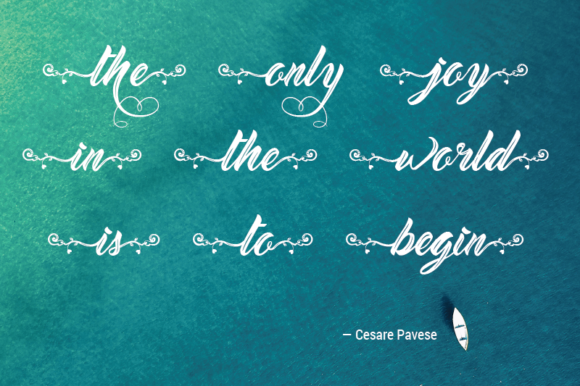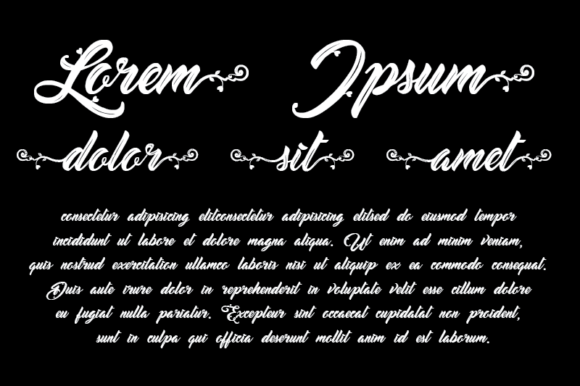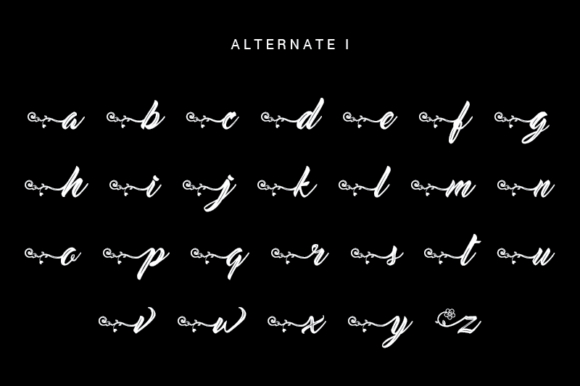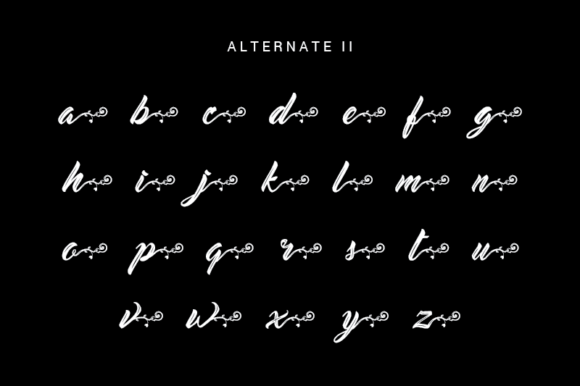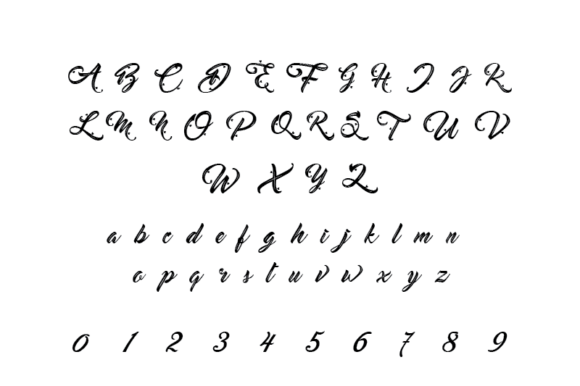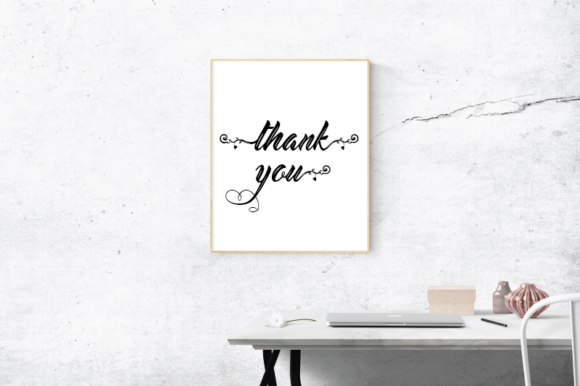
Bryonna Font
About Bryonna Font
Introducing “Bryonna,” an exquisite and elegant handwritten font that exudes beauty and grace. With its flowing and timeless style, “Bryonna” is the perfect choice for a wide array of projects, whether you’re designing wedding invitations, thank you cards, quotes, greeting cards, logos, business cards, or any other design that craves a touch of sophistication.
The smooth and flowing lines of “Bryonna” create a sense of harmony and balance, making it a captivating choice for conveying elegance and refinement in your designs. Its varying baseline adds a dynamic and organic touch, giving your projects a sense of movement and liveliness.
With the font being PUA encoded, you have effortless access to all the glyphs and swashes, allowing you to experiment and unleash your creativity without limitations. The beautiful alternates and glyphs open up a world of design possibilities, enabling you to create truly unique and eye-catching compositions.
While “Bryonna” is rooted in the classic charm of calligraphy, its contemporary flair infuses your designs with a fresh and modern twist. This blend of timeless grace and contemporary sophistication ensures that your projects stand out and leave a lasting impression on your audience.
In the realm of wedding stationery, “Bryonna” shines as it beautifully captures the essence of love and celebration. From elegant wedding invitations to heartfelt thank you cards, this font adds a touch of romance and allure to each design, making every moment feel special and cherished.
For quotes and greeting cards, “Bryonna” brings a sense of poise and eloquence to your words, enhancing the impact of your messages and leaving a lasting impression on your recipients.
In the world of branding and logos, “Bryonna” lends an air of refinement and sophistication to your visual identity. It conveys a sense of professionalism and excellence, making it a perfect choice for businesses and brands that aspire to stand out in a sea of competition.
Whether you’re designing social media graphics, creating stunning wall art, or curating a stylish business card, “Bryonna” adds an aura of elegance and charm that captivates your audience and makes your designs truly unforgettable.
So, fall in love with the exquisite beauty of “Bryonna” and elevate your projects to new heights of elegance and sophistication. With each stroke of this flowing handwritten font, you’ll witness your designs come alive and reach the highest levels of creativity and impact. Embrace the timeless grace and contemporary allure of “Bryonna” and let it be your go-to font for creating breathtaking masterpieces that leave a lasting impression on all who behold them.